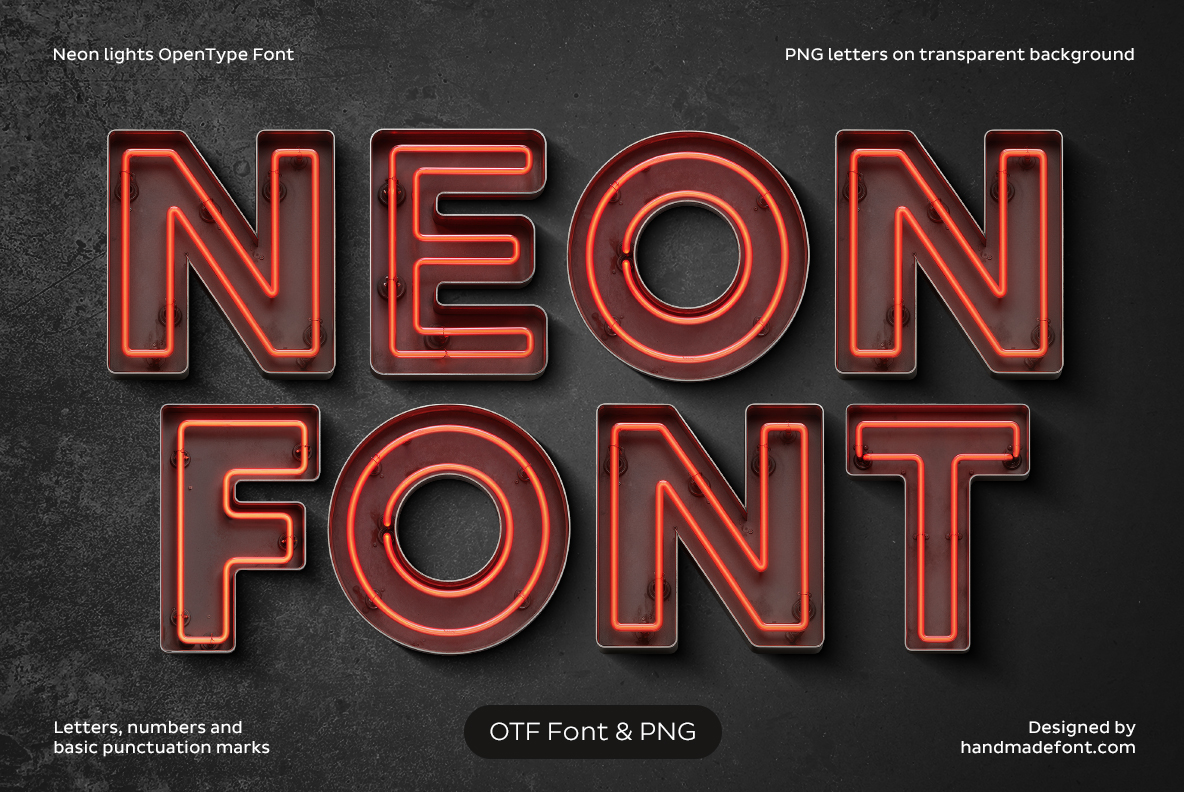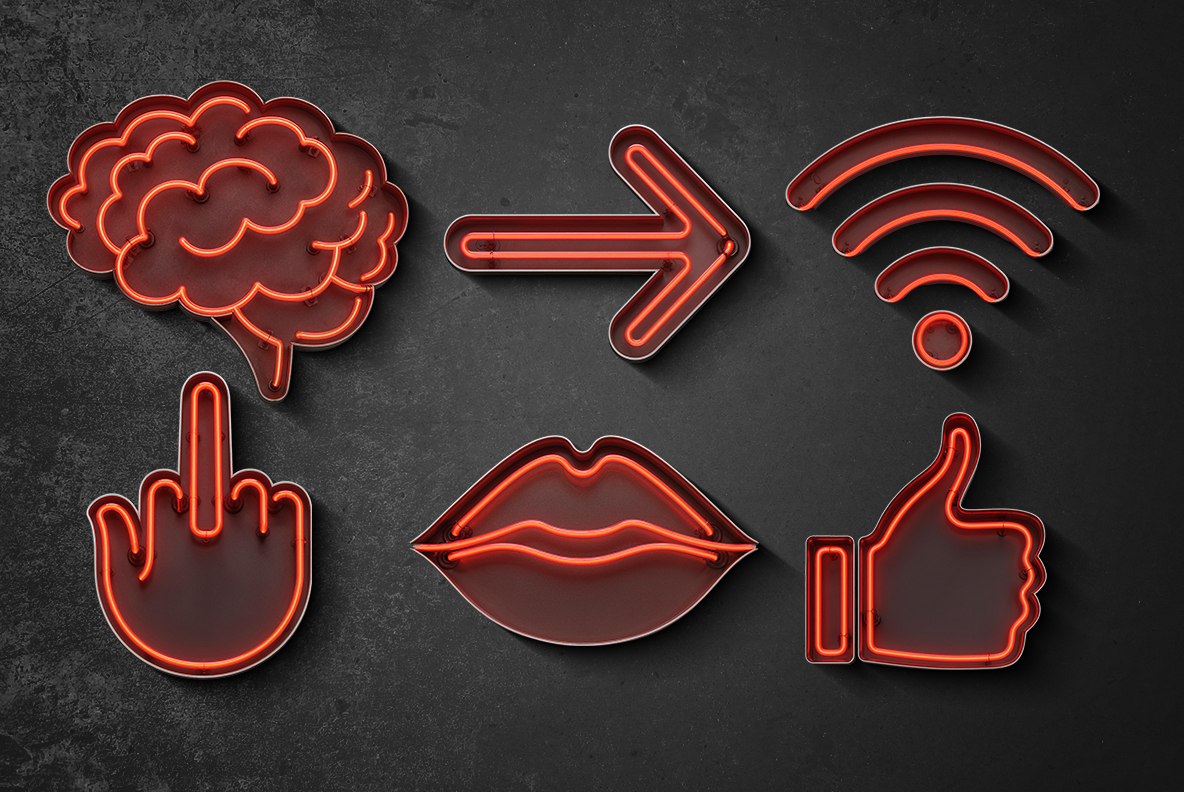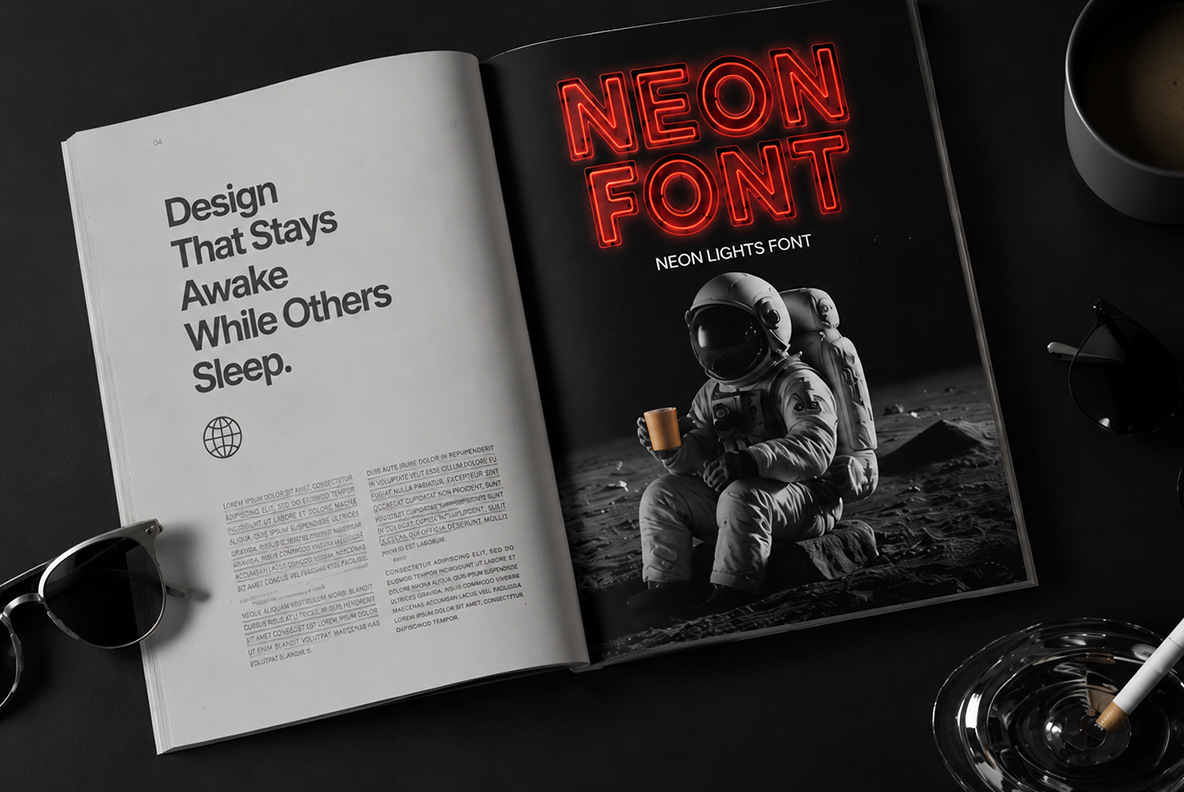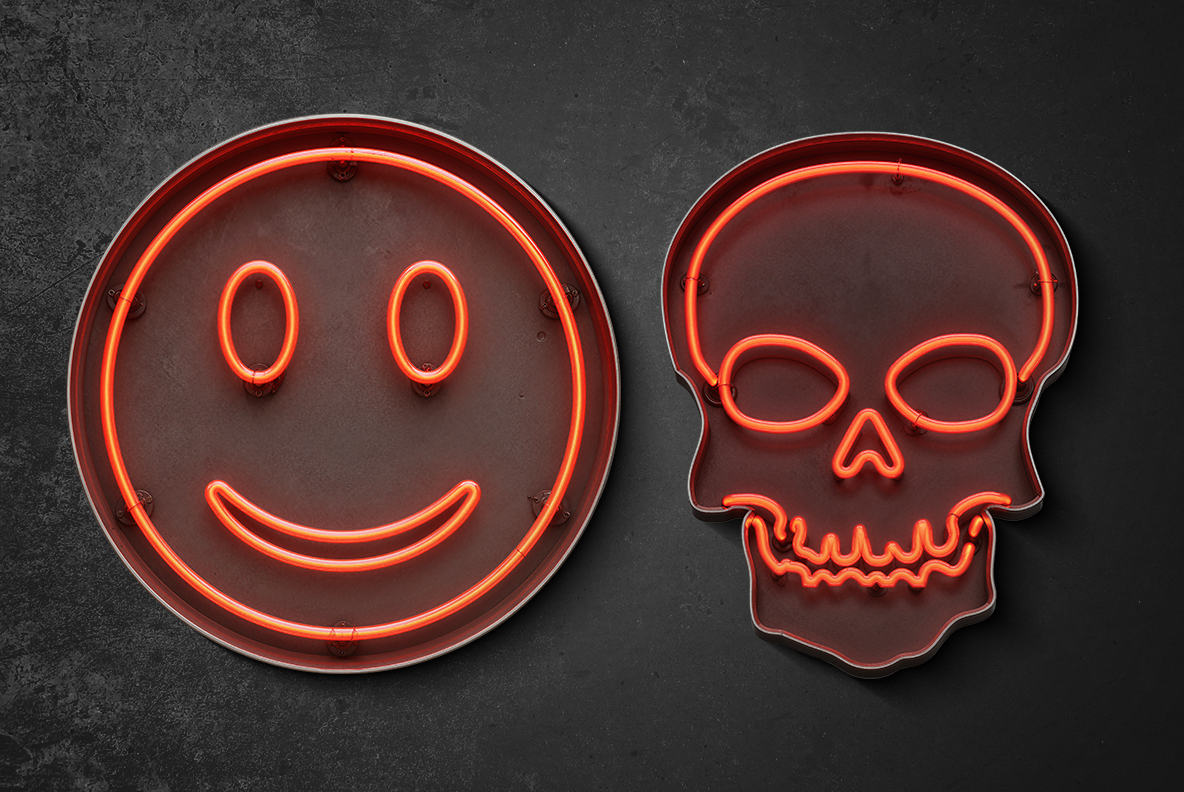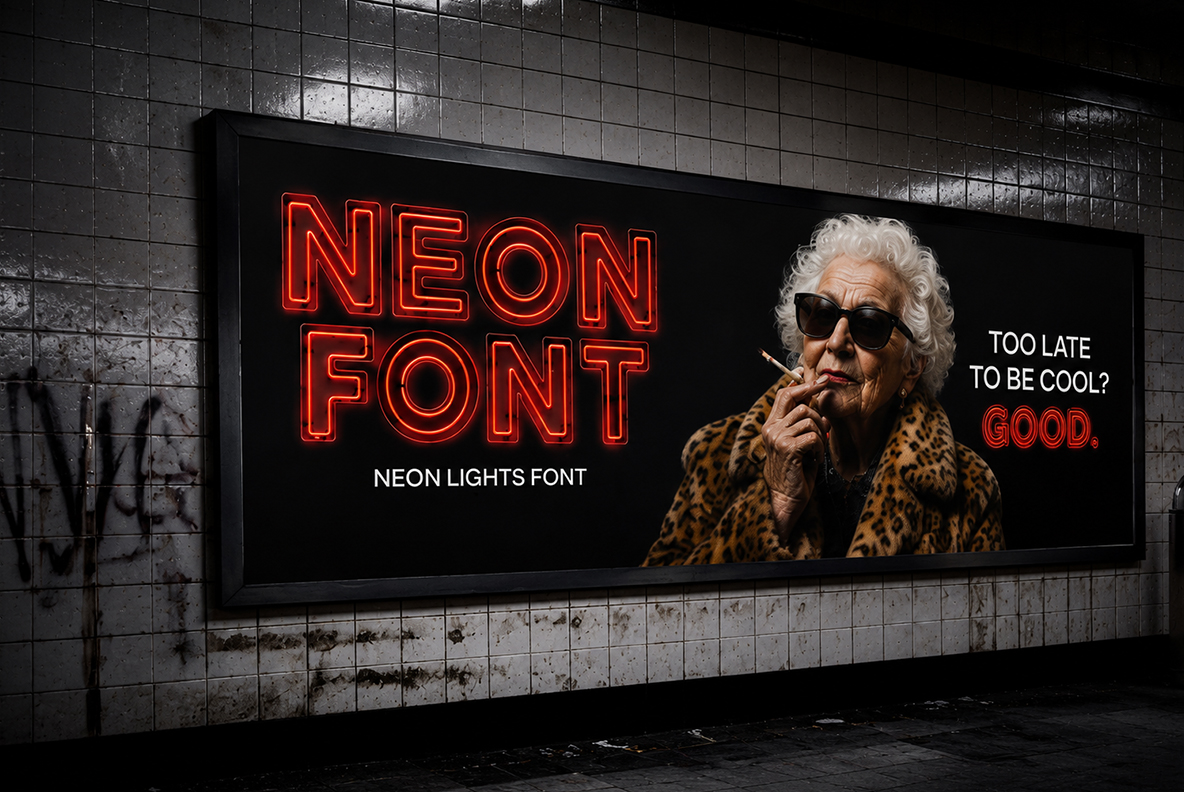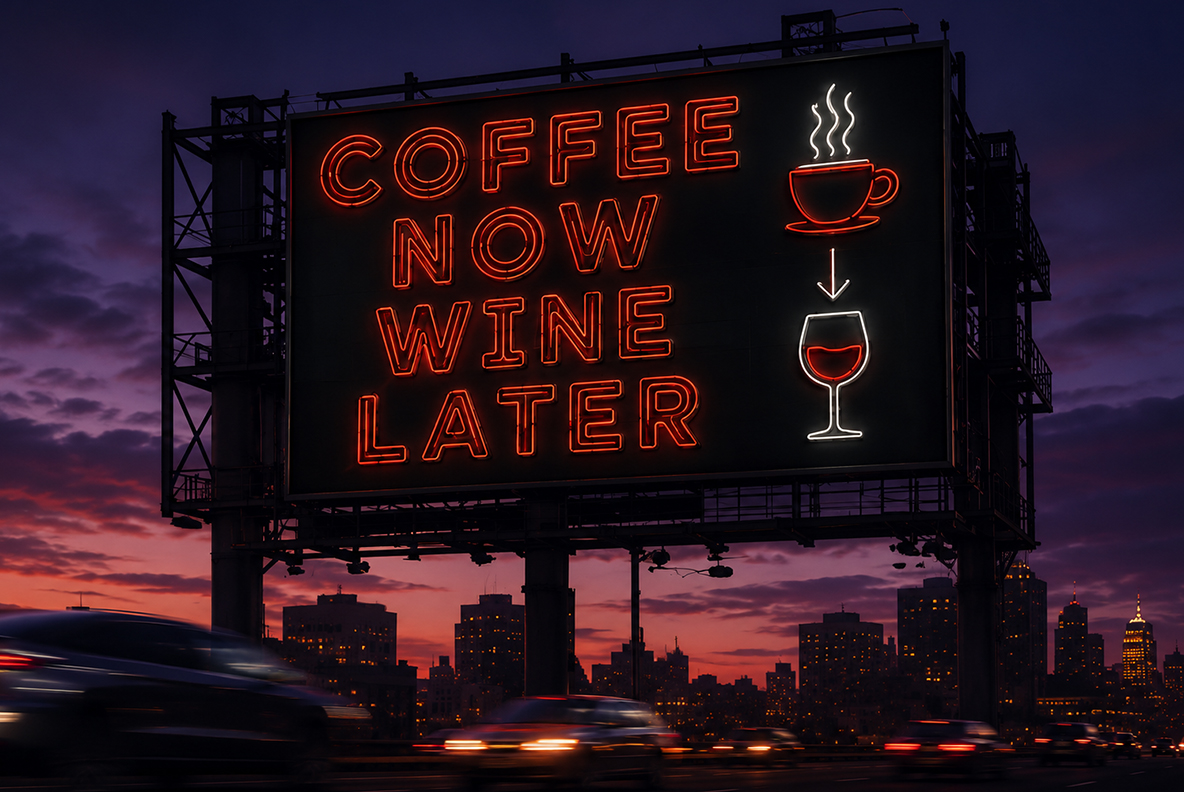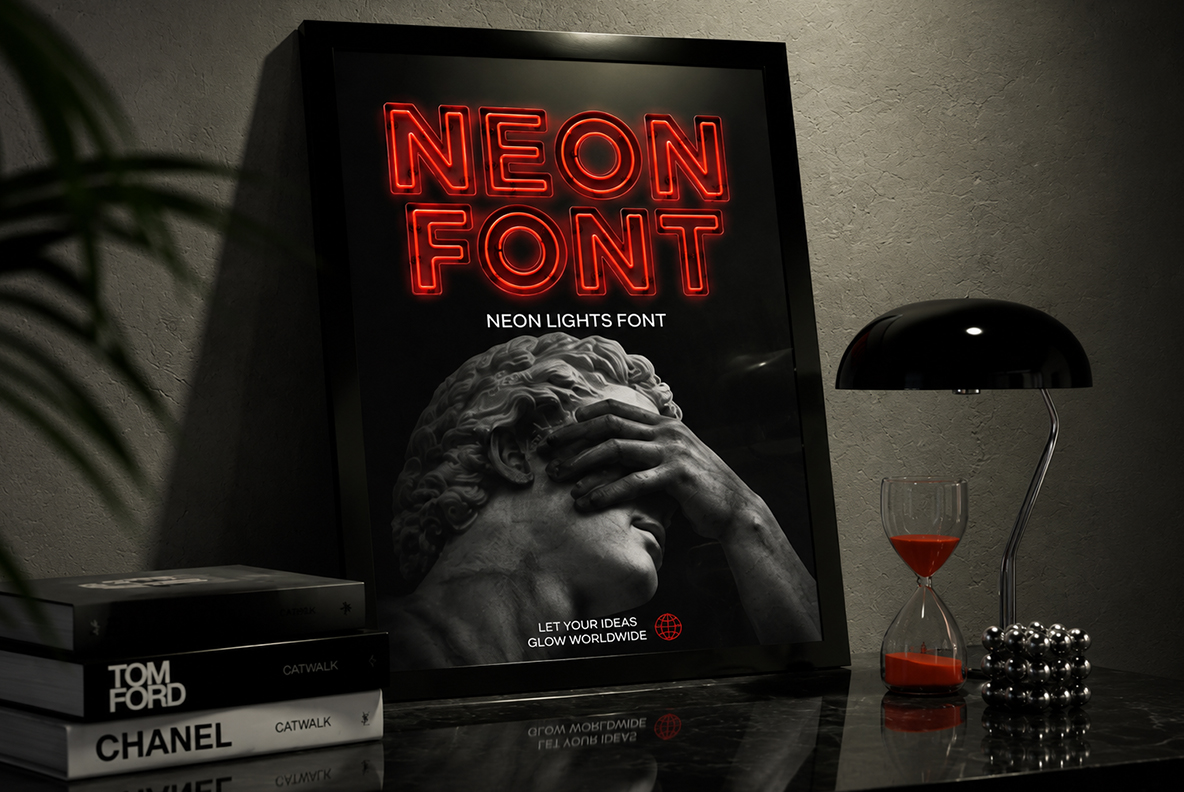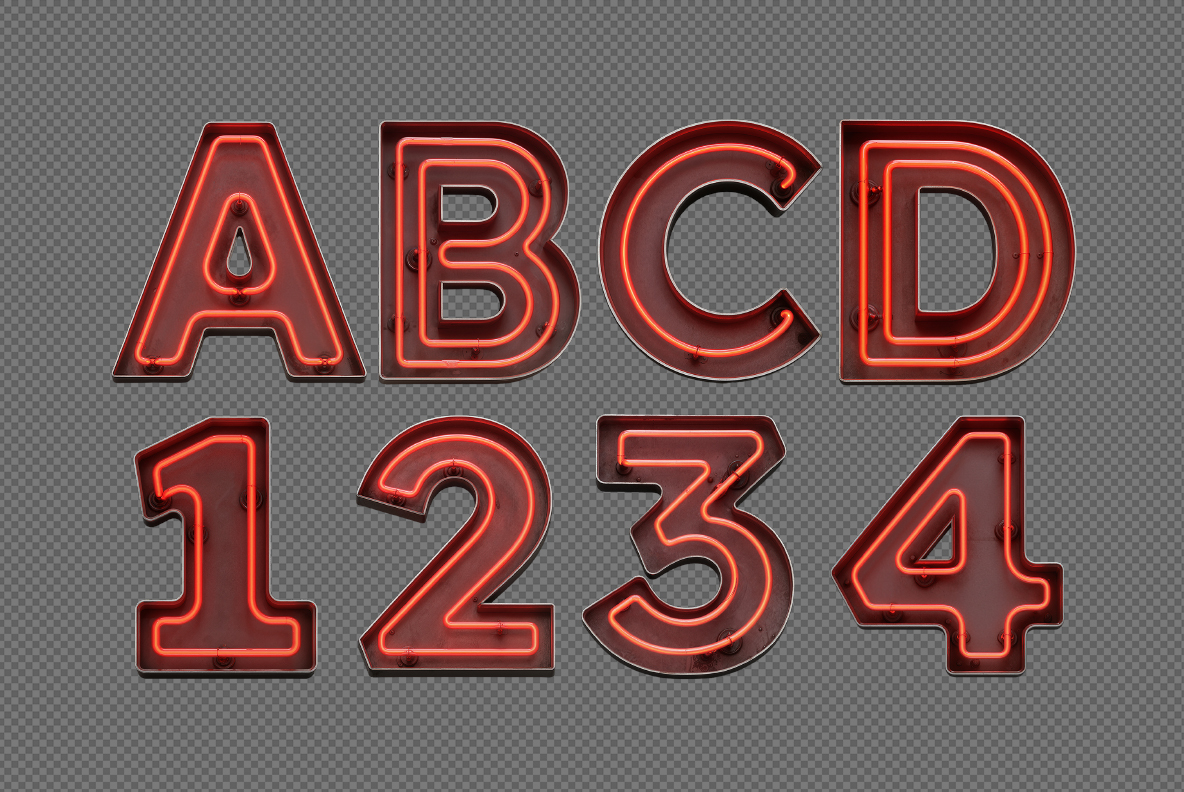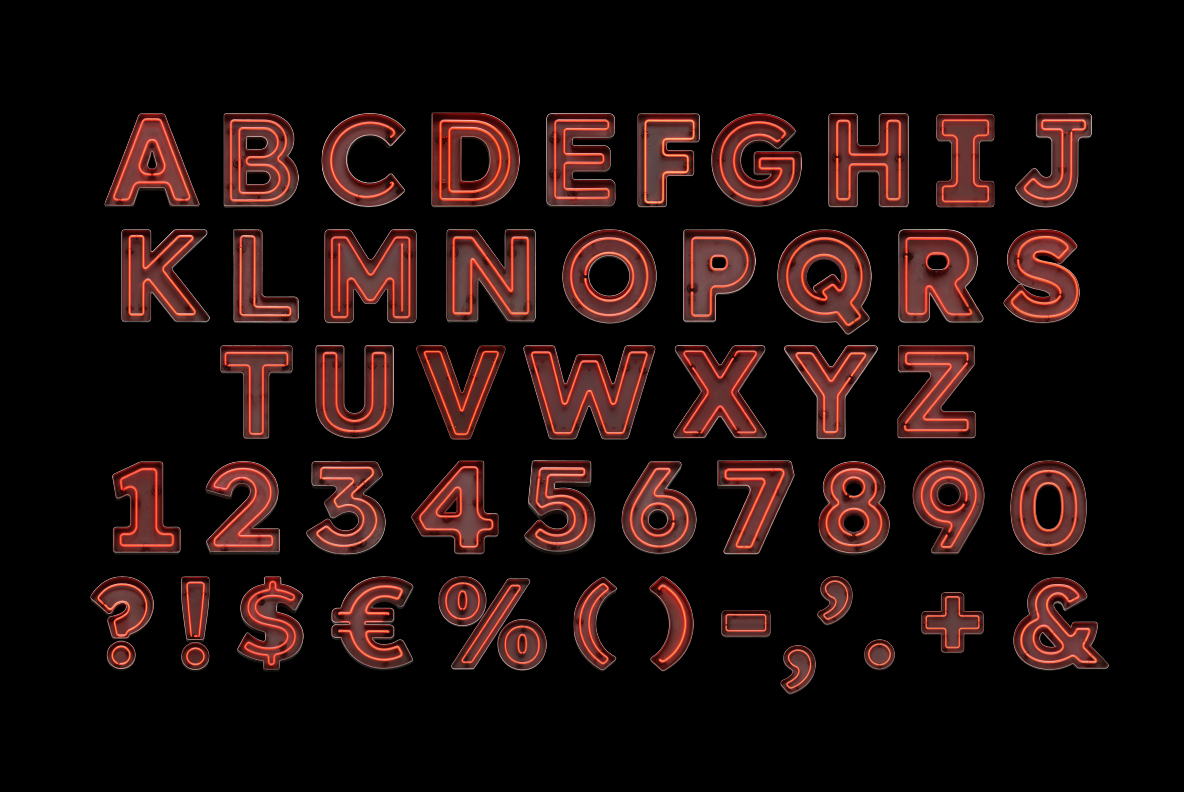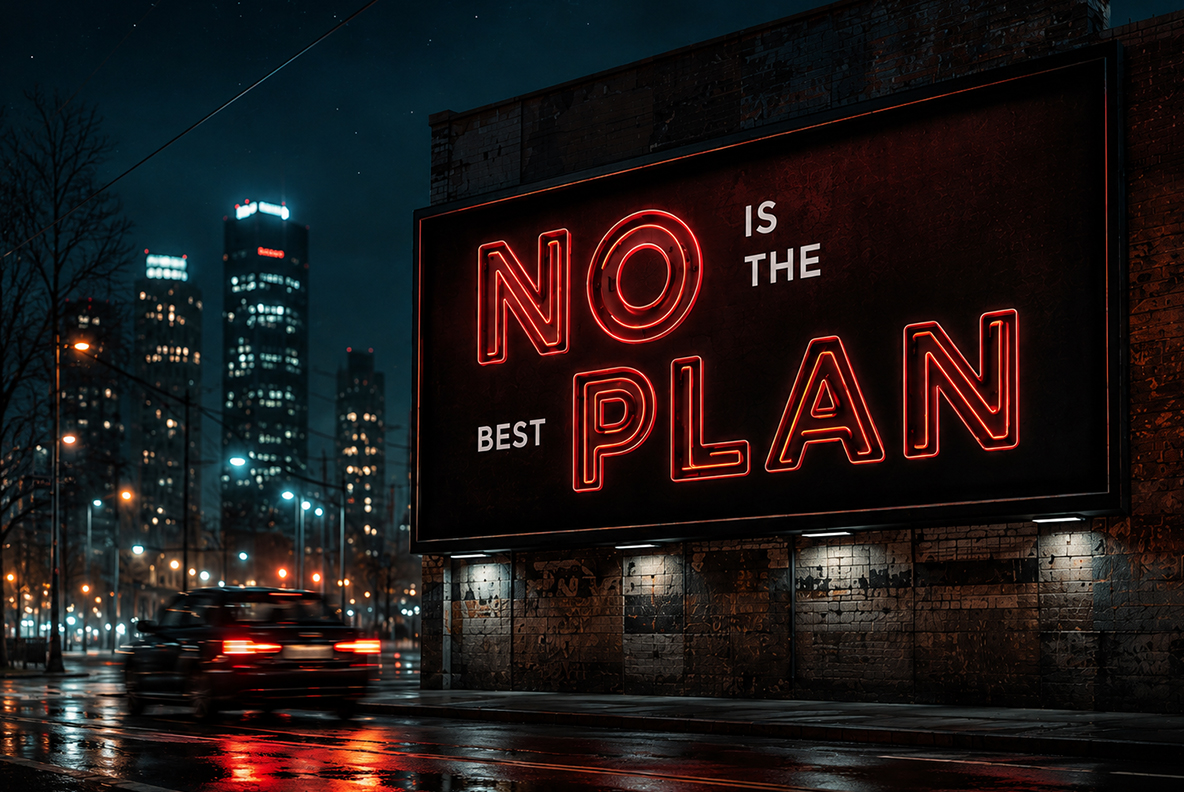
Neon Lights Font – Turn Every Message Into a Landmark
Wide steady capitals on smoked dark acrylic, with a red neon tube tracing each outline twice and small breaks where a glass section would end. A full icon set comes along: hearts, skulls, a thumbs-up, a star, an eye, hands and a lightning bolt. It suits bars, clubs, barbers, coffee shops and streetwear.
A red tube traced twice around every letter
The letterforms are wide and steady, so the tube has room to run. A red neon line first traces the outline, then repeats a second time just inside it. That doubling is what makes the glyphs read as a real sign rather than a glow effect. Where the tube turns a corner, it bends in a soft radius instead of a sharp point. Small dark gaps break the line too, exactly where a glass section would end.
Smoked acrylic behind the glow
Behind the tubes, of course, sits a dark smoked panel. It is not flat black, since the red bleeds into it and lifts the surface slightly. Shadows fall behind each letter, meanwhile, which lifts the whole word off the wall. On rough concrete or tiled backgrounds that depth becomes obvious. So the set behaves like an object, not a filter.
Animated preview showing letters of the Neon Lights Font being typed.
Neon Lights Font on signs, shirts and covers
After dark is where the Neon Lights Font belongs, of course. We show it here on a city billboard, a subway poster, a shopfront box sign, a magazine spread and a black tee. Bars, barbers, coffee shops, clubs and streetwear, meanwhile, all use this language already. Framed prints work well too, since a single word carries the whole piece. Keep the background dark, because the glow needs somewhere to spread.
The Neon Lights Font icon set and files
Dark concrete cover artwork spelling NEON FONT in the Neon Lights Font.
Letters, numerals and symbols of the Neon Lights Font glowing on black.
Night city billboard with a four-word headline set in the Neon Lights Font.
Six glowing icons including a thumbs-up, a star and an eye from the Neon Lights Font.
Black t-shirt back print with two glowing words in the Neon Lights Font.
Six glowing icons including hearts, a skull and a clover from the Neon Lights Font.
Tiled subway wall poster with a four-line message set in the Neon Lights Font.
Six glowing icons including a star, hands and arrows from the Neon Lights Font.
Shopfront box sign at night with three words set in the Neon Lights Font.
Six glowing icons including a brain, lips and a wifi mark from the Neon Lights Font.
Open magazine spread with a glowing two-word title in the Neon Lights Font.
Round smiley badge and a skull icon glowing red from the Neon Lights Font.
Tiled subway billboard with a glowing two-word title in the Neon Lights Font.
Dusk roadside billboard with a four-line message set in the Neon Lights Font.
Framed dark print on a shelf with a glowing title in the Neon Lights Font.
Letters A to D and numerals 1 to 4 of the Neon Lights Font on a transparent background.